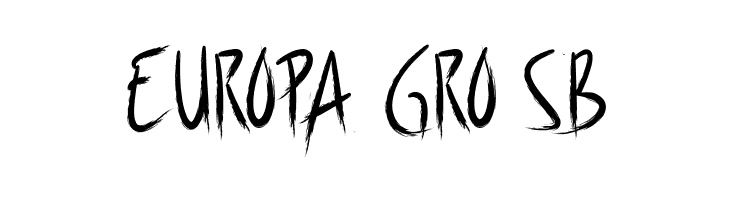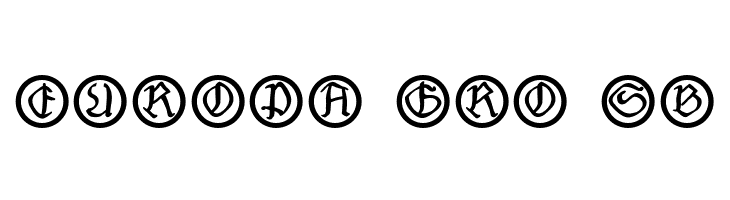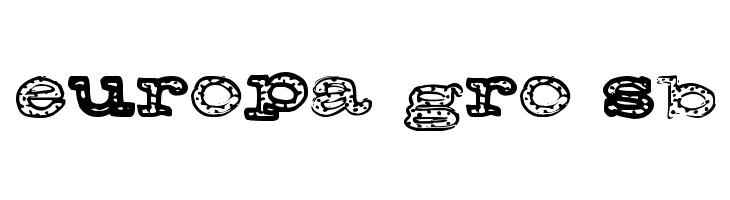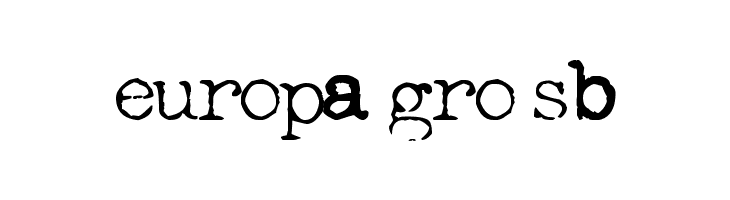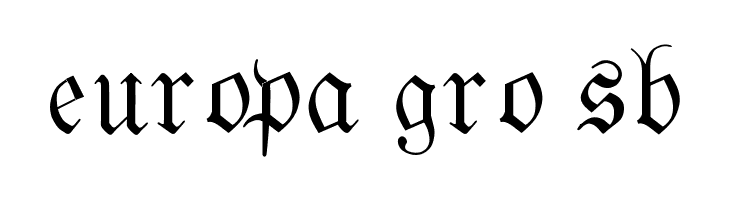
A dynamic, brush-stroke font with an expressive and artistic style.
An ornate Blackletter font with intricate, angular designs and historical elegance.
A bold, expressive handwritten font with dynamic strokes and artistic flair.
A modern blackletter font with circular enclosures and bold, angular strokes.
A bold, dripping font perfect for spooky and eerie designs.
A playful, hand-drawn font with freckle-like textures and bold outlines.
A vintage typewriter-style font with a distressed, grungy texture.
A vintage, calligraphic font with an adventurous and historical flair.